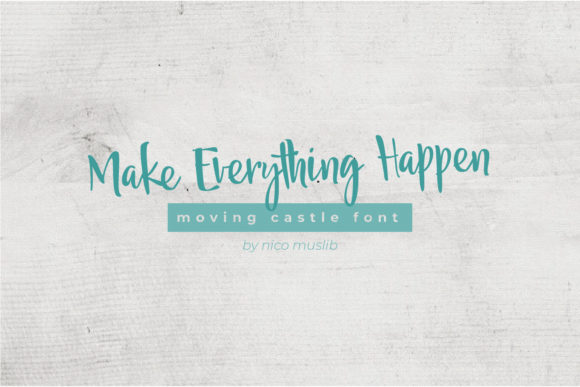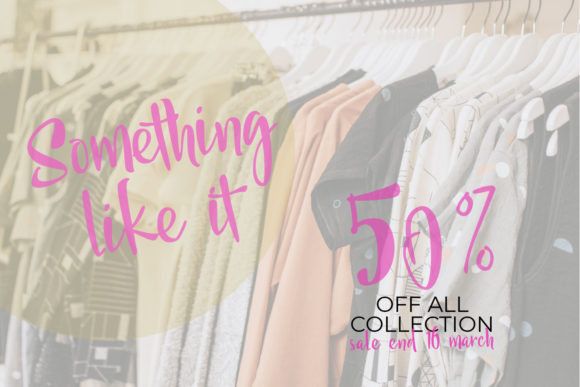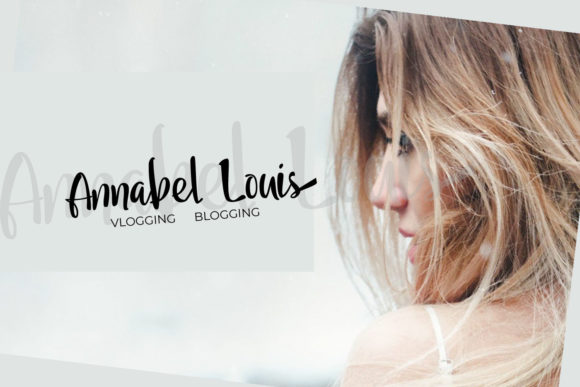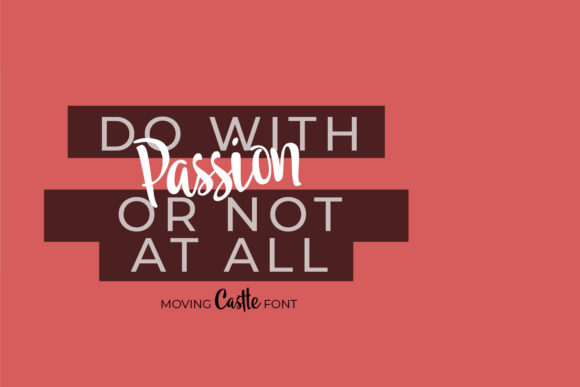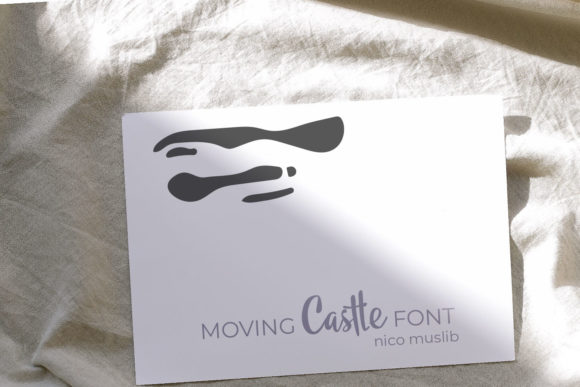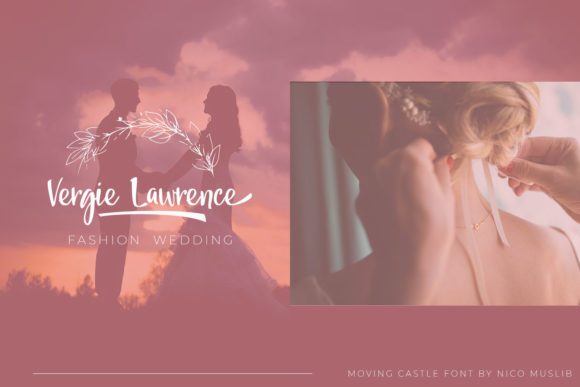
Introduction to Moving Castle Font
As designers, we’ve all been there – staring at a blank page, trying to find the perfect font to bring our creative project to life. It’s that moment of inspiration when everything comes together, and the words flow effortlessly onto the page. For me, that moment was when I discovered the enchanting Moving Castle Font.
This beautiful handwritten font is a game-changer for any design project. With its delicate and elegant touch, it’s the perfect choice for creating eye-catching logos, branding, quotes, and even wedding invitations. Whether you’re working on a romantic card or packaging design, Moving Castle Font is sure to add a touch of magic to your work.
Key Features of Moving Castle Font
- High-quality design resource ideal for creative projects, including fantasy and fairy tale themes.
- Unique characteristics: elegant, whimsical, and detailed design elements, making it perfect for adding a touch of magic to any creative project.
Honest Review: Moving Castle Font
I recently stumbled upon the Moving Castle Font, a free download that I was excited to add to my design arsenal. As a designer, I’m always on the lookout for high-quality resources that can elevate my creative projects.
The Moving Castle Font did not disappoint. The transparent background allows for seamless integration with any design, and the overall aesthetic is simply magical ✨. The font’s whimsical feel makes it perfect for adding a touch of personality to children’s books, advertisements, or even wedding invitations.
- Unique and playful design
Overall, I’m impressed with the Moving Castle Font, and I would recommend it to designers who are looking for a high-quality, free resource to add to their design library. Just be aware of the limitations mentioned above, and you’ll be all set for creating some truly magical designs ✨.
Using the Font
To get the most out of the Moving Castle Font, use it with a transparent background to create a beautiful, elegant design. You can also pair it with other design resources, such as graphics and images, to add depth and interest to your design.
The Moving Castle Font is perfect for a variety of use cases, including wedding invitations, business cards, and brochures. Its elegant design makes it ideal for any project that requires a touch of sophistication and elegance.
Is the Moving Castle Font high quality and suitable for print projects?
Yes, the Moving Castle Font is a high-quality design resource that’s suitable for print projects. With its clear and legible characters, it’s an excellent choice for business cards, brochures, and other print materials. However, please note that the font’s quality may vary depending on the specific print resolution and output device used.